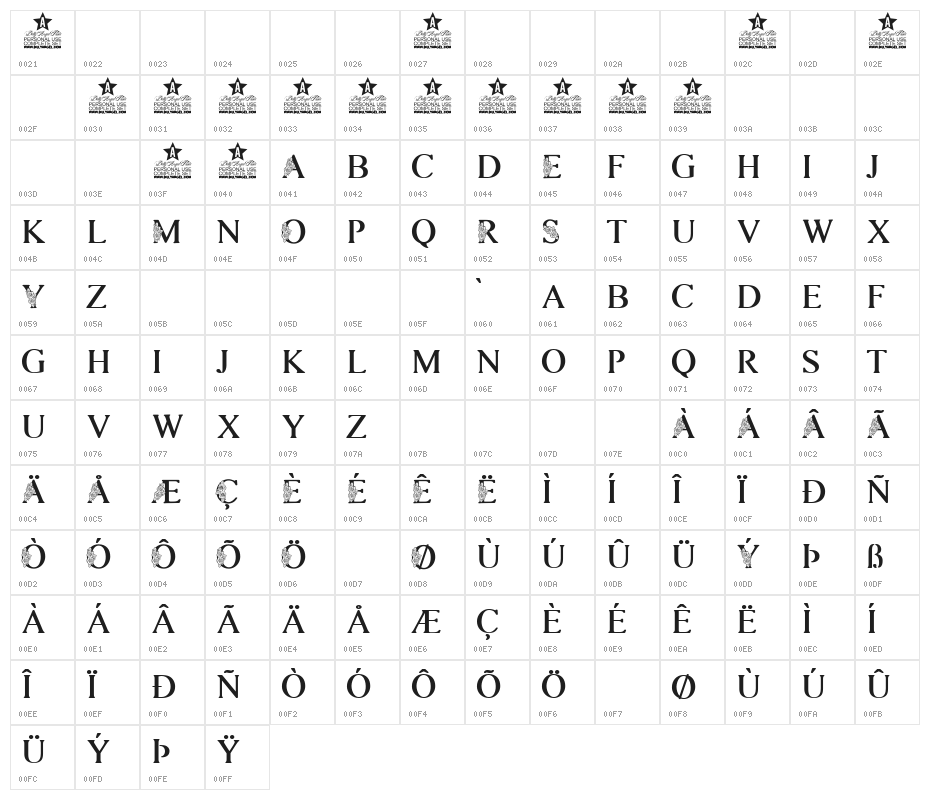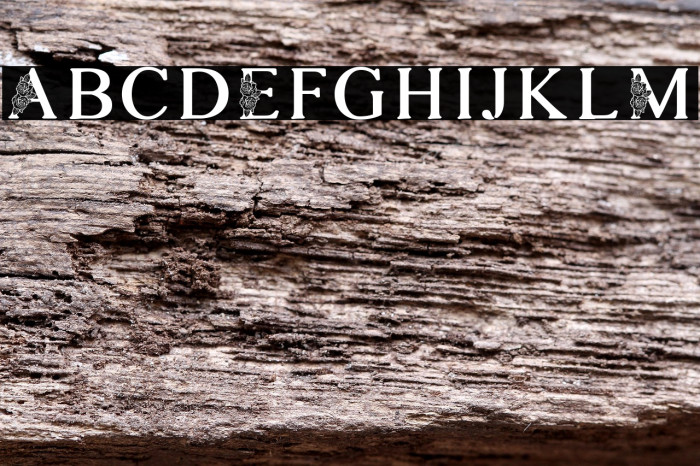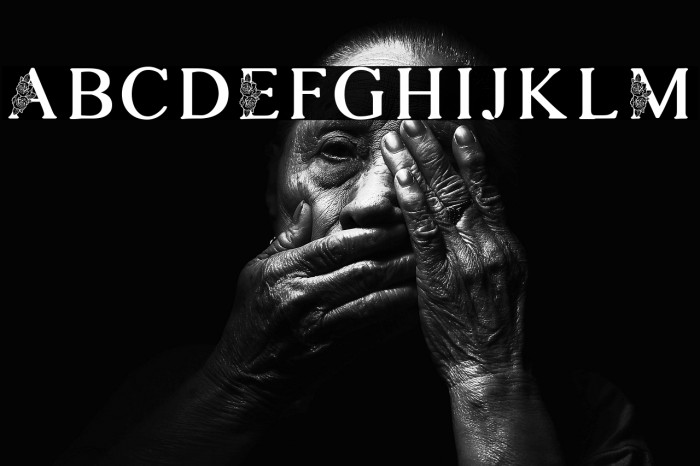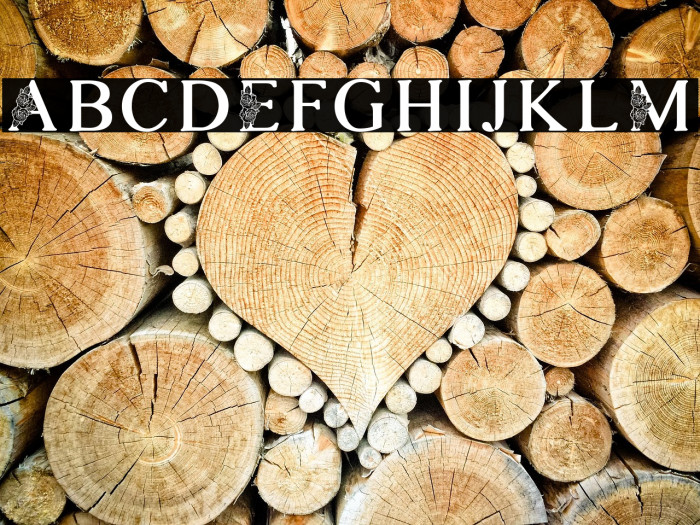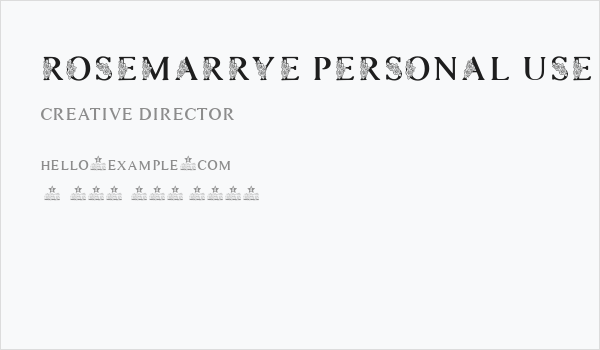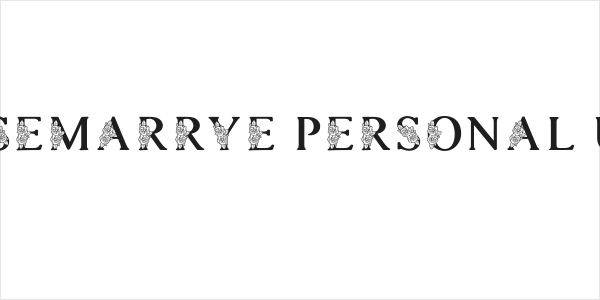
ROSEMARRYE PERSONAL USE Font
ROSEMARRYE PERSONAL USE Description
This font features a decorative serif style with unique floral embellishments integrated into some of the uppercase letters, adding an artistic and whimsical touch. The characters are well-defined with a classic serif structure, providing a traditional yet creative appearance. The embellishments are subtle enough to maintain readability while offering a distinctive flair. The font is suitable for projects that require a blend of elegance and creativity, such as invitations, branding, or artistic designs. The overall design maintains a balance between decorative elements and classic typography, making it versatile for various uses.
| Overall Style | Classic, Decorative |
| Proposed Projects | Ideal for wedding invitations, branding, artistic projects, and decorative headings. |